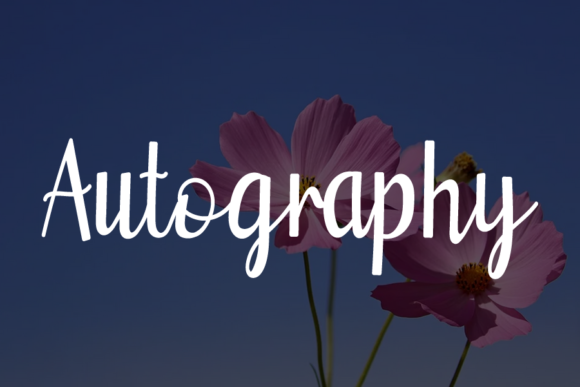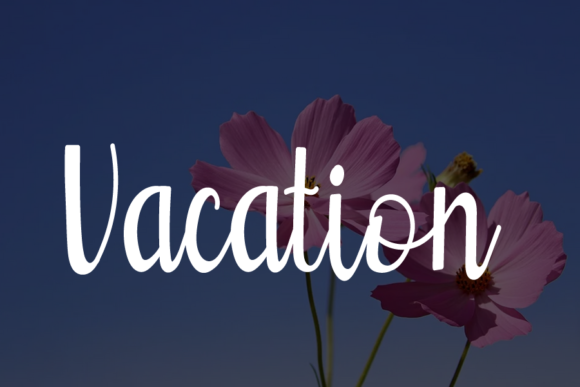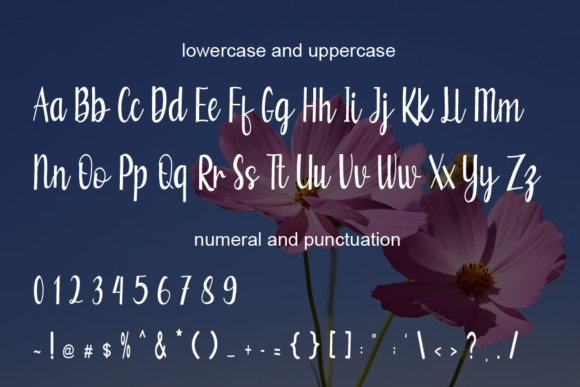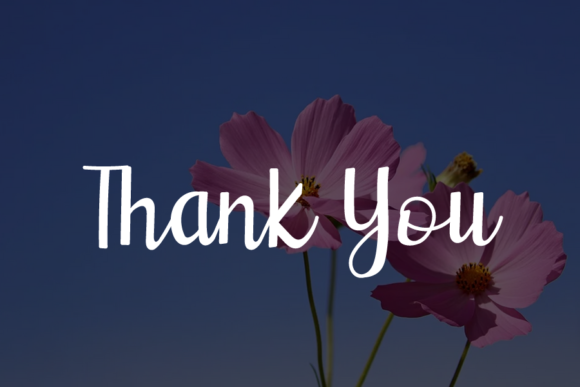
Discover the Elegance of Betrice Font: Elevate Your Designs with Luxury and Sophistication
Are you a designer or crafter looking for a font that exudes luxury and sophistication? Look no further than Betrice Font, a beautiful and delicate script font that is sure to add a touch of elegance to any design project. With its unique and flowing characters that dance along the baseline, Betrice Font is the perfect choice for those who want to create stunning and high-end designs.
The Beauty of Betrice Font
Betrice Font is a script font that boasts a distinctive and eye-catching style. Its characters are designed to flow smoothly along the baseline, creating a sense of movement and fluidity. This font is perfect for designs that require a touch of luxury and sophistication, such as branding, packaging, and advertising materials.
One of the standout features of Betrice Font is its delicate and refined appearance. The font’s slender lines and curves create a sense of elegance and poise, making it ideal for designs that require a high level of sophistication. Whether you’re creating a logo, brochure, or website, Betrice Font is sure to add a touch of luxury to your design.
Why Choose Betrice Font?
So, why should you choose Betrice Font for your design projects? Here are just a few reasons:
- Unique and eye-catching style: Betrice Font’s distinctive style is sure to set your designs apart from the crowd.
- Luxury and sophistication: This font exudes luxury and sophistication, making it perfect for high-end designs.
- Versatile: Betrice Font can be used for a wide range of design projects, from branding and packaging to advertising and websites.
- Elegant and refined: The font’s delicate and refined appearance makes it ideal for designs that require a high level of sophistication.
How to Use Betrice Font in Your Designs
Betrice Font is easy to use and can be incorporated into a wide range of design projects. Here are a few tips for using Betrice Font in your designs:
- Pair with bold fonts: Betrice Font pairs well with bold fonts, creating a striking contrast that adds visual interest to your designs.
- Use for headlines and titles: Betrice Font is perfect for headlines and titles, adding a touch of luxury and sophistication to your designs.
- Experiment with colors: Betrice Font looks great in a range of colors, from metallic and pastel shades to bold and bright hues.
Design Inspiration with Betrice Font
Betrice Font is a versatile font that can be used in a wide range of design projects. Here are a few design inspiration ideas to get you started:
- Luxury branding: Use Betrice Font to create a luxurious brand identity that exudes sophistication and elegance.
- Wedding and event designs: Betrice Font is perfect for wedding and event designs, adding a touch of romance and sophistication to your materials.
- Packaging design: Use Betrice Font to create stunning packaging designs that stand out on store shelves.
In conclusion, Betrice Font is a beautiful and delicate script font that is sure to add a touch of luxury and sophistication to any design project. With its unique and flowing characters, elegant and refined appearance, and versatility, Betrice Font is the perfect choice for designers and crafters who want to create stunning and high-end designs.
Whether you’re creating a logo, brochure, website, or packaging design, Betrice Font is sure to elevate your designs to the next level. So why not give Betrice Font a try and see the difference it can make in your designs?